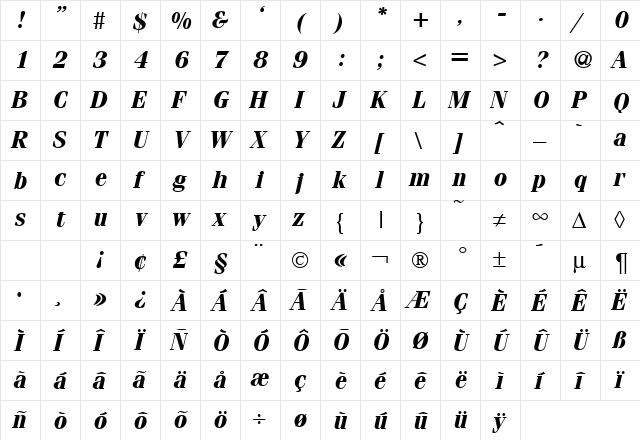
Fervent BoldItalic
Design Context for Fervent Typeface
Fervent offers clean, dependable letterforms without strong stylistic allegiance, making it a practical choice for designers who need flexibility. The dynamic lean of this cut emphasises speed and emphasis in any layout. The heavy weight commands attention and anchors typographic hierarchies.
Pro Tip: Use Fervent for emphasis, pull quotes, and subheadings where its slanted energy can add rhythm to the layout.